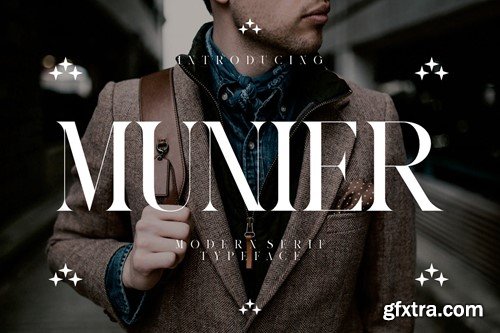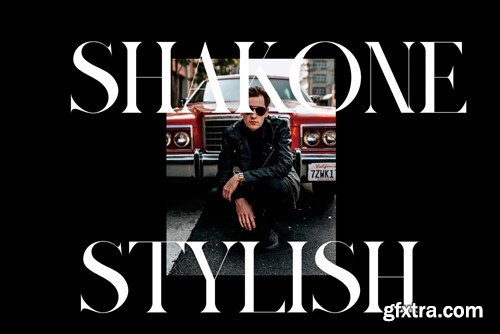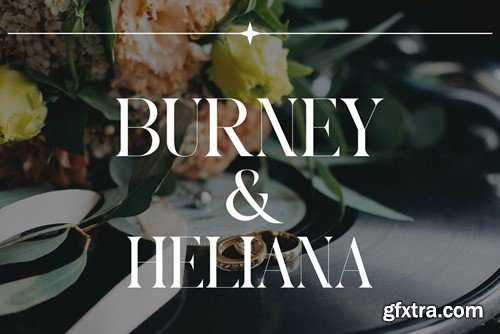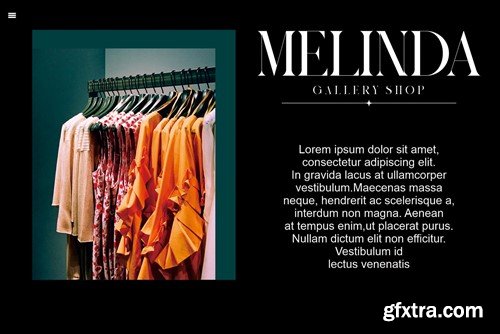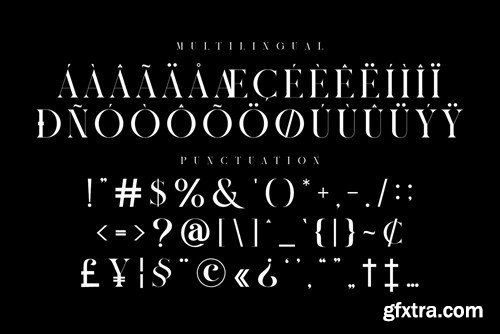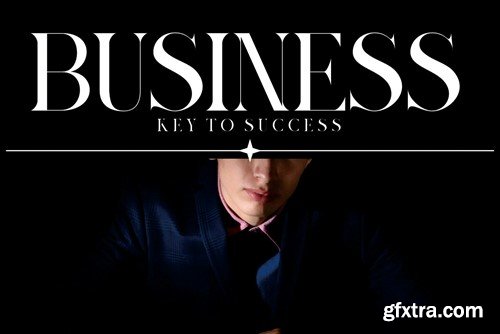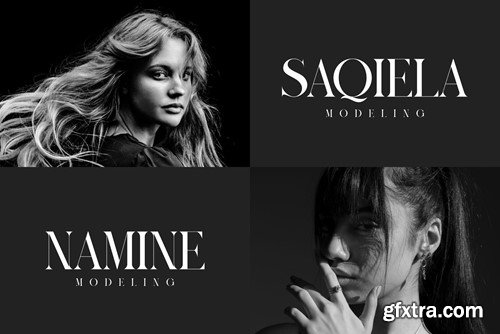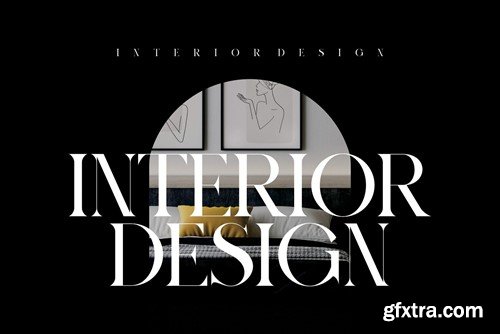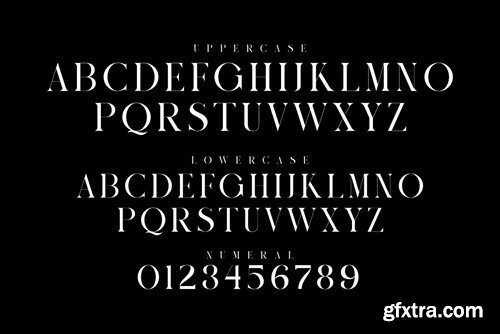
MUNIER Modern Serif Typeface
MUNIER Modern Sans Serif Typeface inspired by the famous minimalist logo perfect for the purposes of designing templates, brochures, videos, advertising branding, logos, invitation, layout design, elegant crafting, beauty design and other What's Included : Accessible in the Adobe Illustrator, Adobe Photoshop, Corel Draw. PUA Encoded Characters - Fully accessible without additional design software. Fonts include multilingual support Image used : All photographs/pictures/vector used in the preview are not included, they are intended for illustration purpose only.